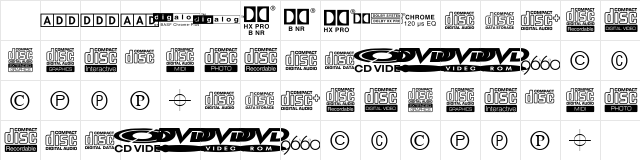
DiscMakers Regular
Design Context for DiscMakers Typeface
DiscMakers is a composed and adaptable typeface that performs quietly and consistently across a wide range of design contexts.